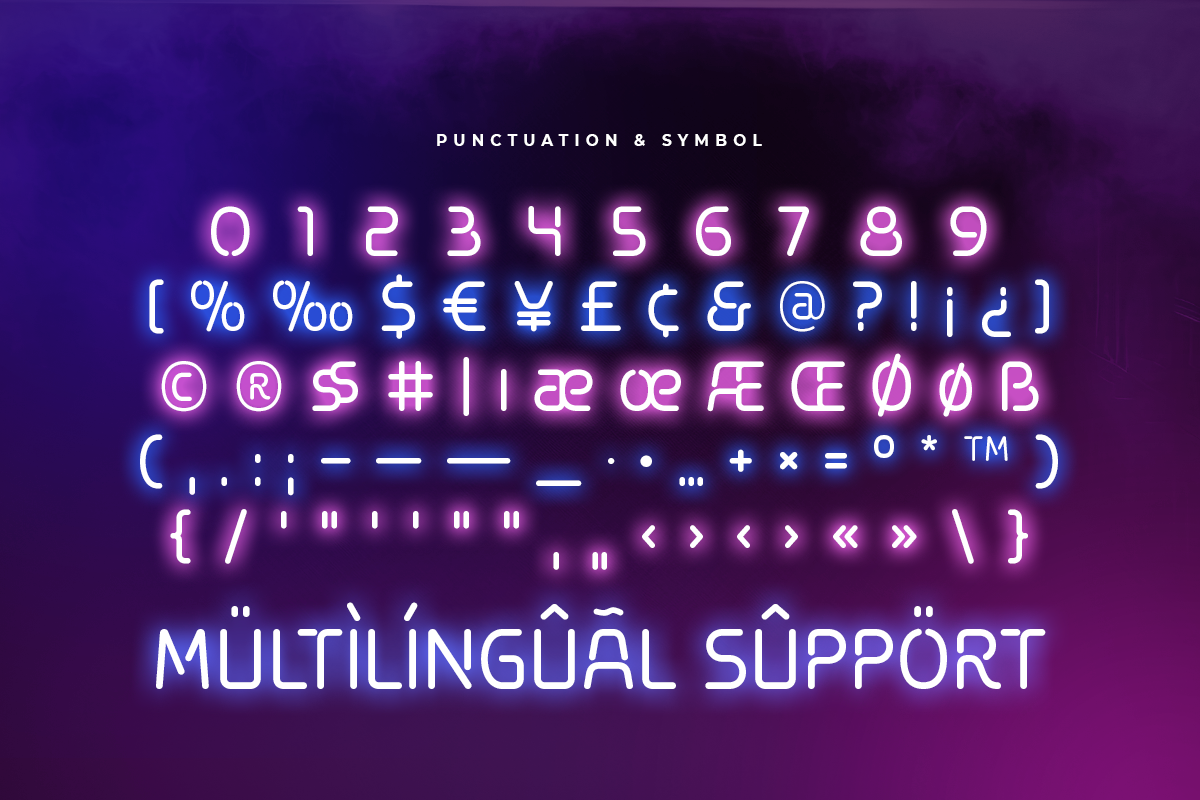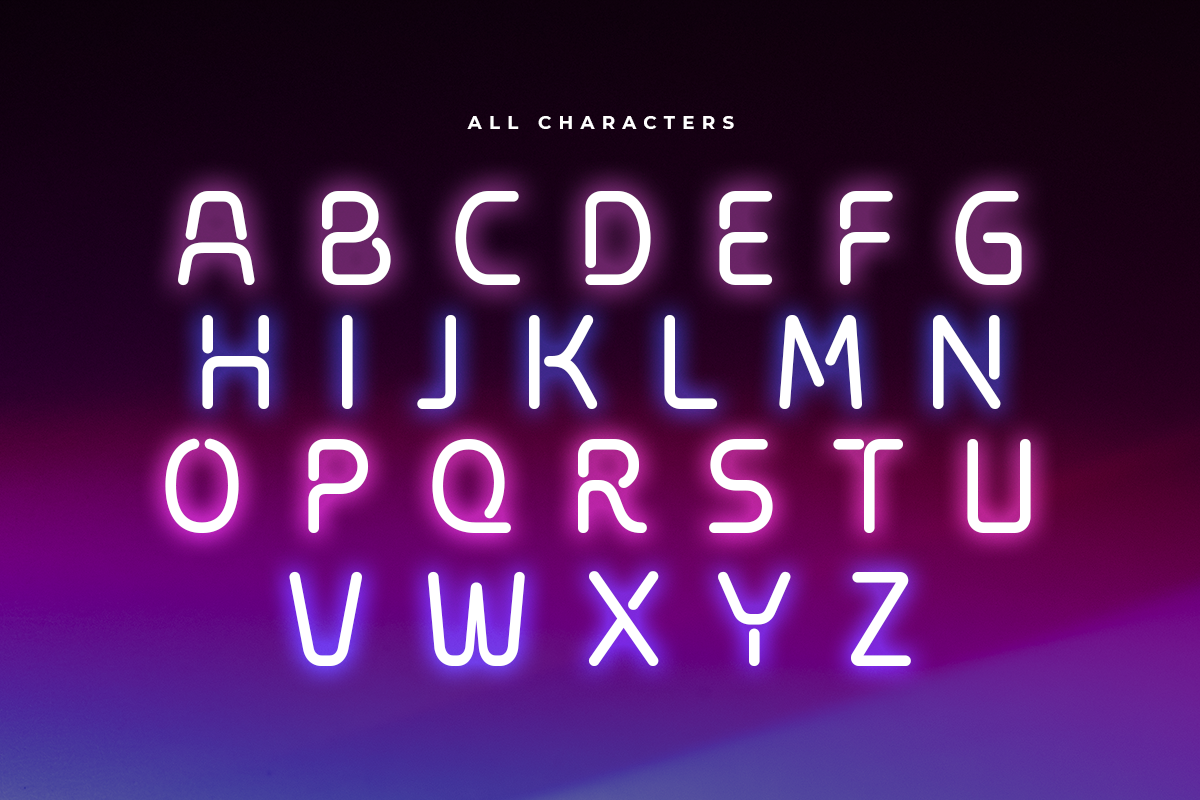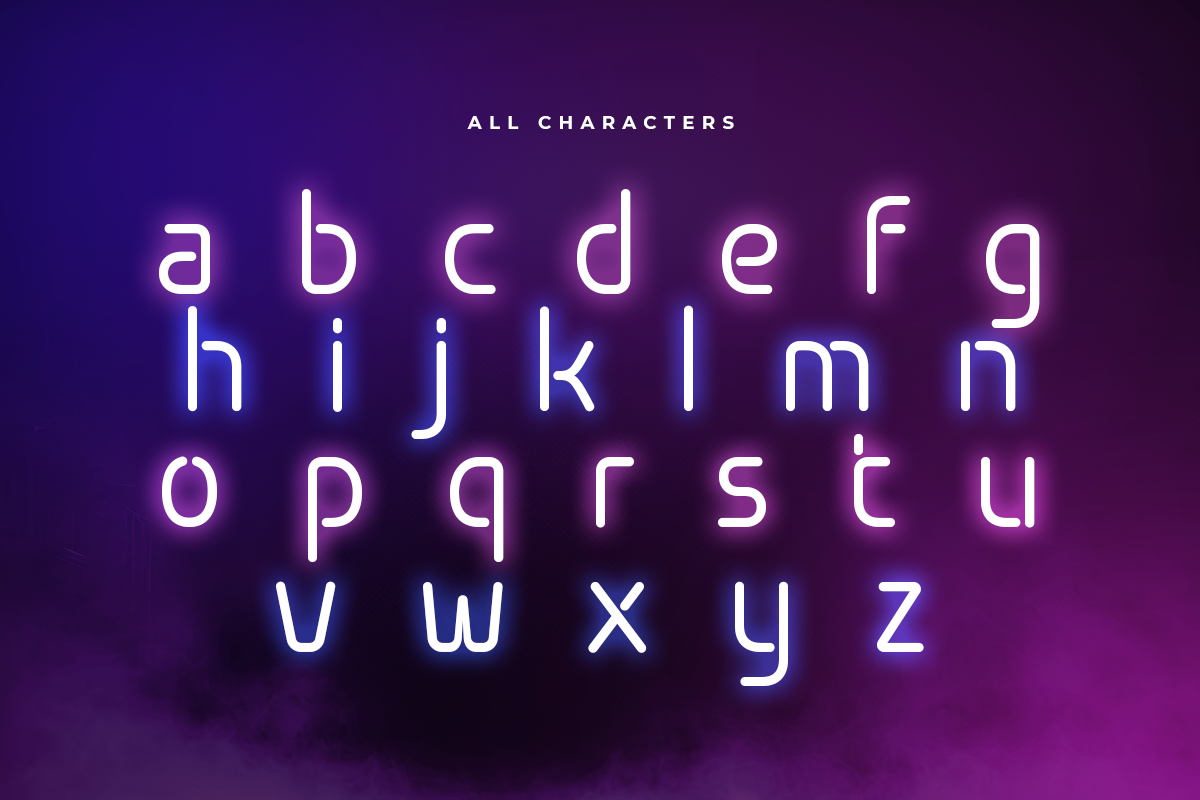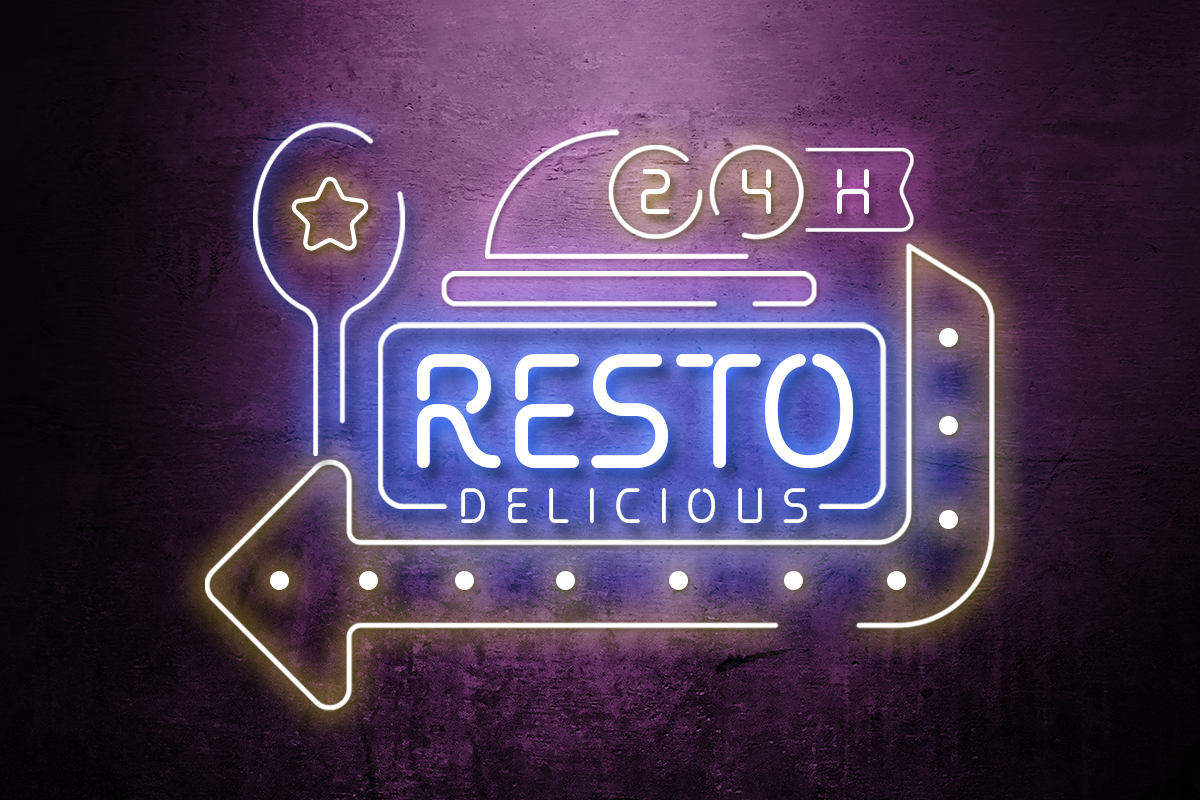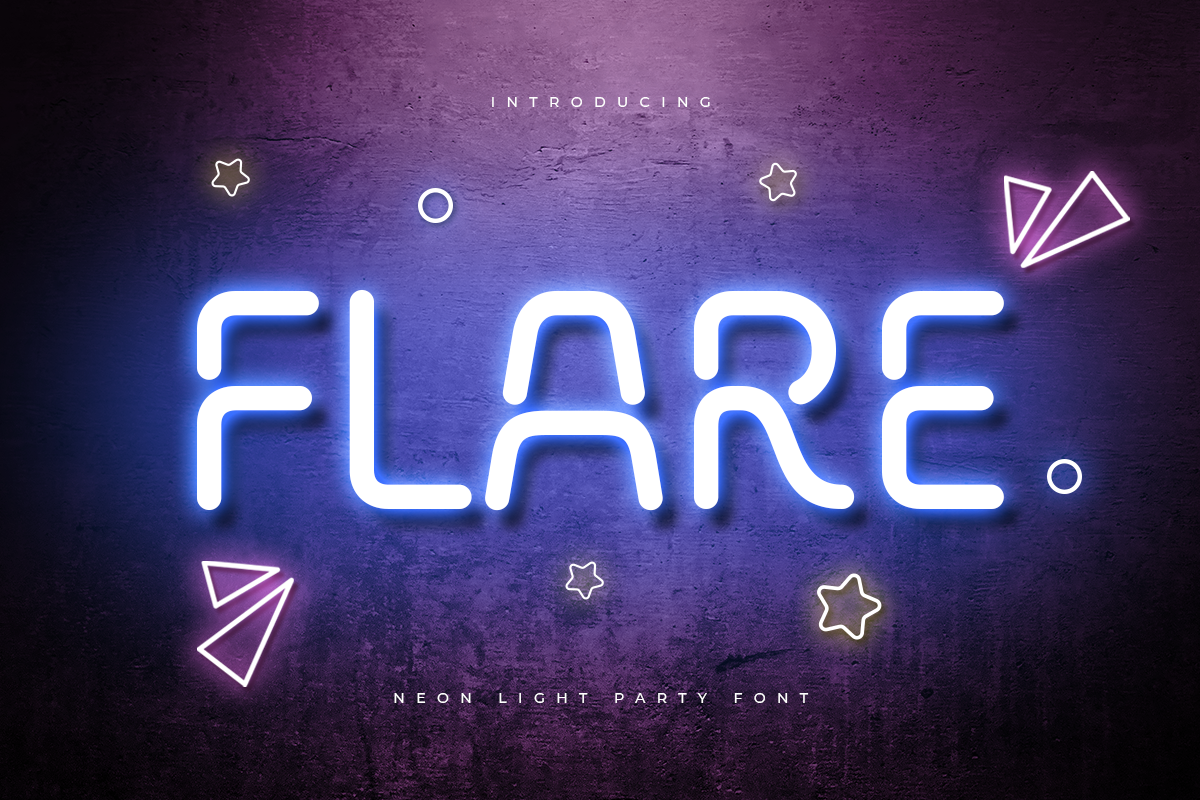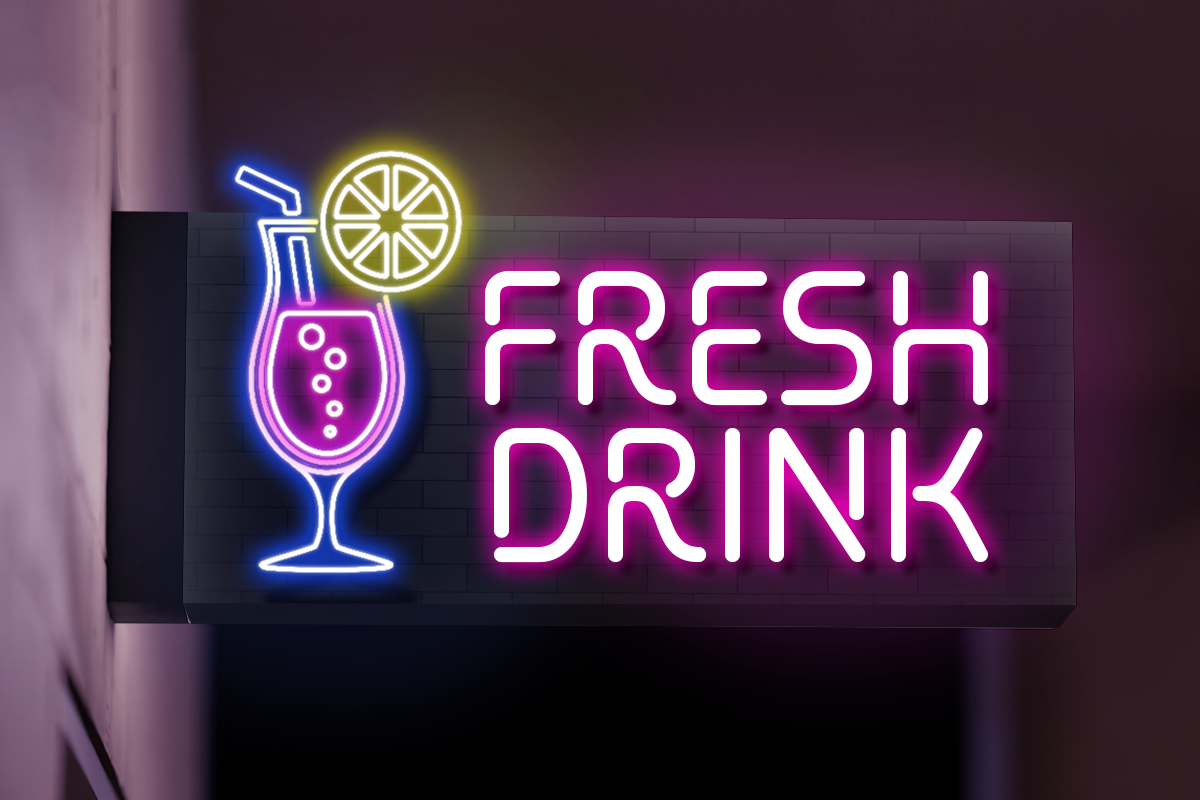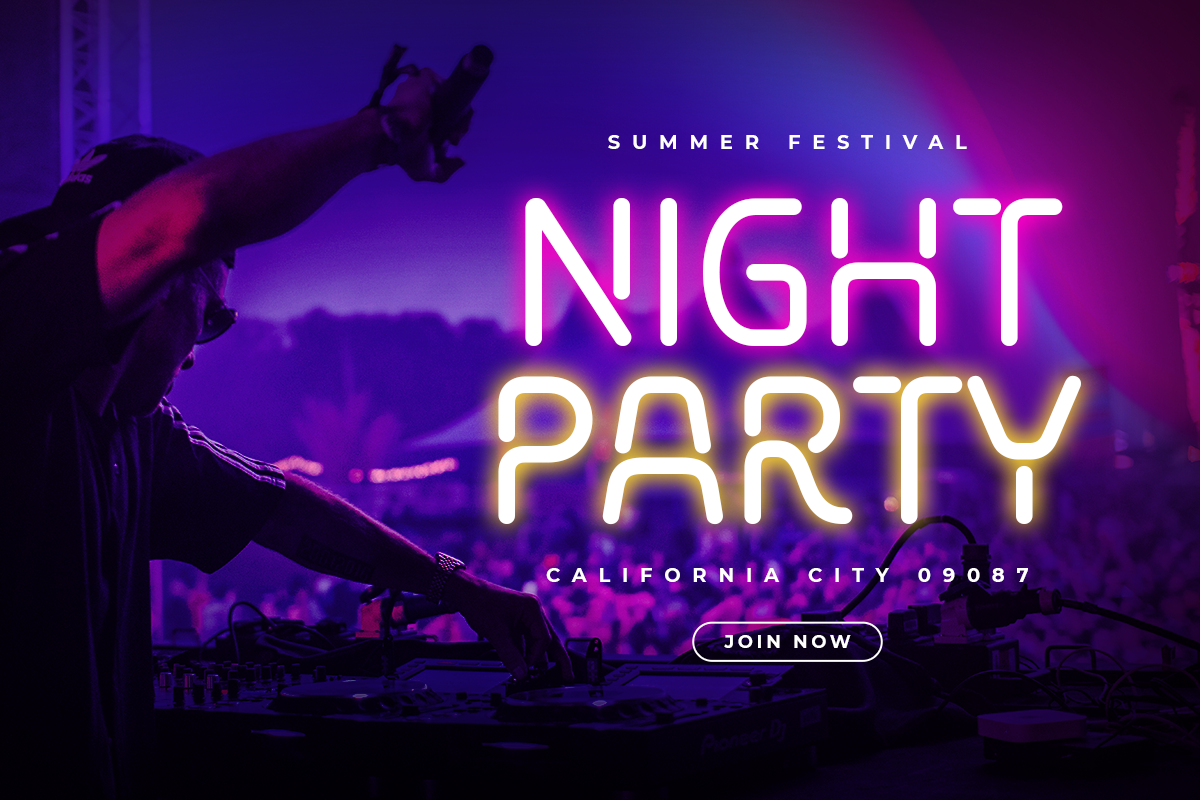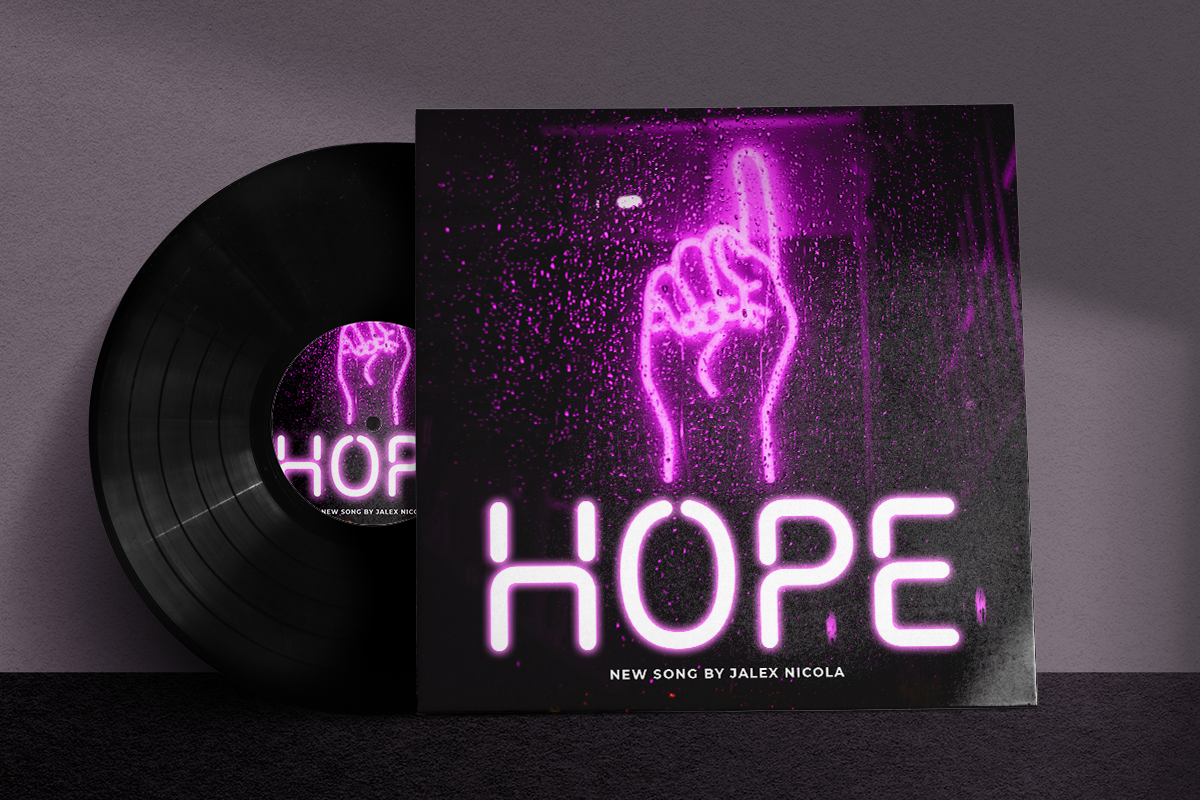
Flare - Neon Light Party Font
Flare is a Neon Light Party Font with Floating shape make your design look unique and modern
A new Display Font that we created special for Headline, Title and more stand out typography needs. It's so perfect to add your style and headline overview. And specially for this font, we crafted for unique style and modern feels so enjoy to create any project that will show your main idea out.
Flare Neon Light Party Font ready with:
- Any options to get creative variations
- Preview as a inspirations that you can do with this font
- Ready with Uppercase & Lowercase characters